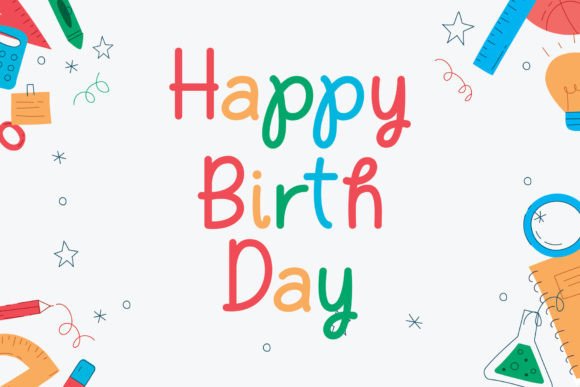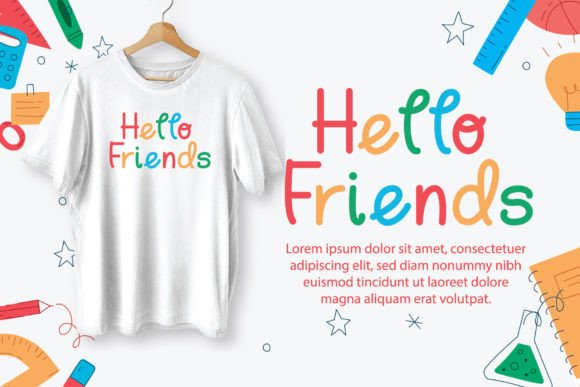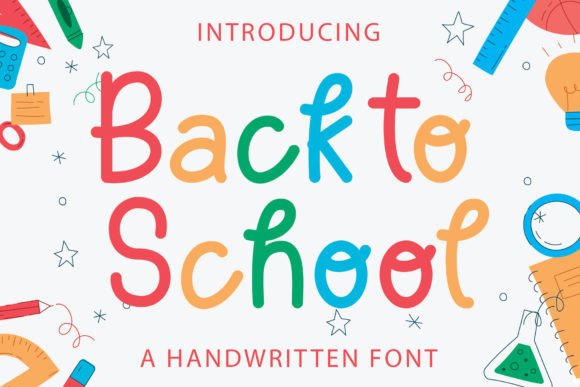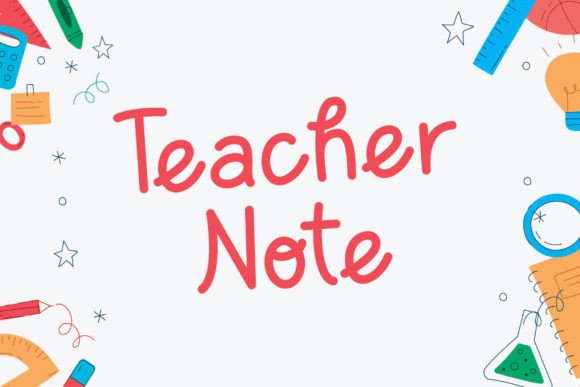
About the Back to School Font
Crafted with precision, the Back to School Font is ready to bring your ideas to life. Back to School font is a charming and nostalgic script typeface that beautifully captures the essence of handwritten notes. With its playful curves and genuine charm, it evokes a sense of warm nostalgia, making it perfect for projects related to education, creativity, and youthful themes.